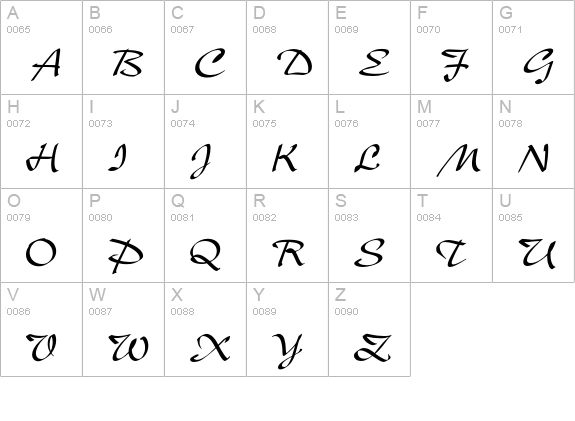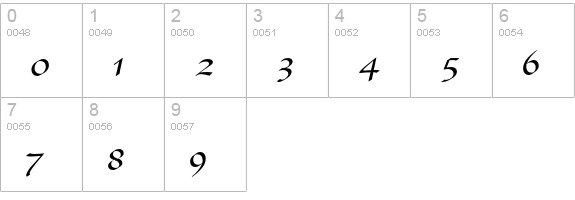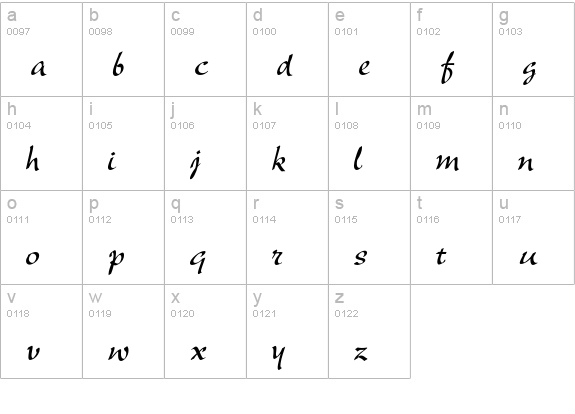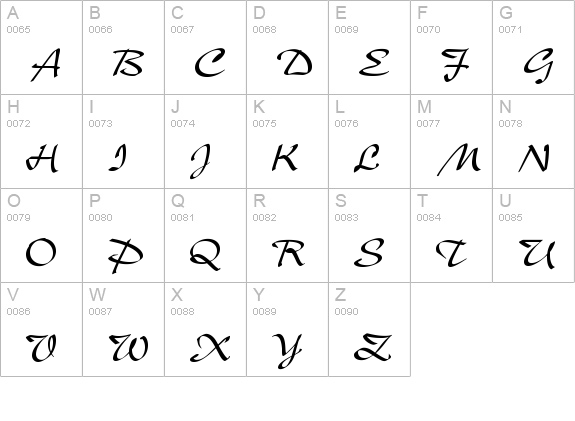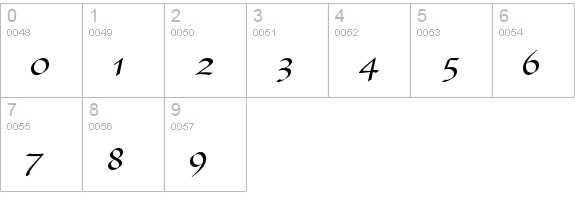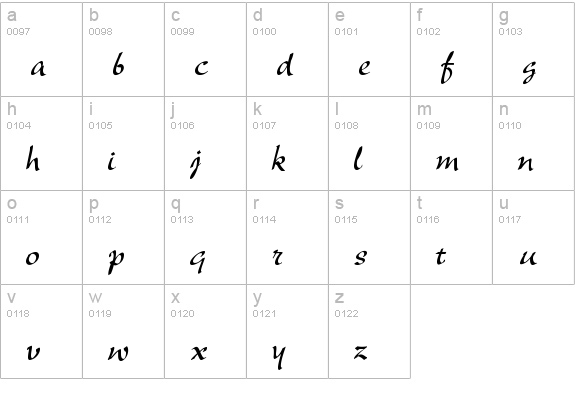
New Berolina Font Details
New Berolina is a beautifully crafted font that exudes elegance and sophistication. With its classic yet modern design, this font is perfect for a wide range of projects, from branding to invitations to print materials. Its unique blend of traditional and contemporary elements makes it a versatile choice for any creative endeavor. What sets New Berolina apart is not only its aesthetic appeal but also its accessibility. This font is available for free download at FontsMarket.com, making it easy for designers and creatives to incorporate it into their work without any hassle. Whether you're looking to add a touch of refinement to your designs or simply want to experiment with a new typeface, New Berolina is the perfect choice. Download it today and elevate your projects with this stunning font.